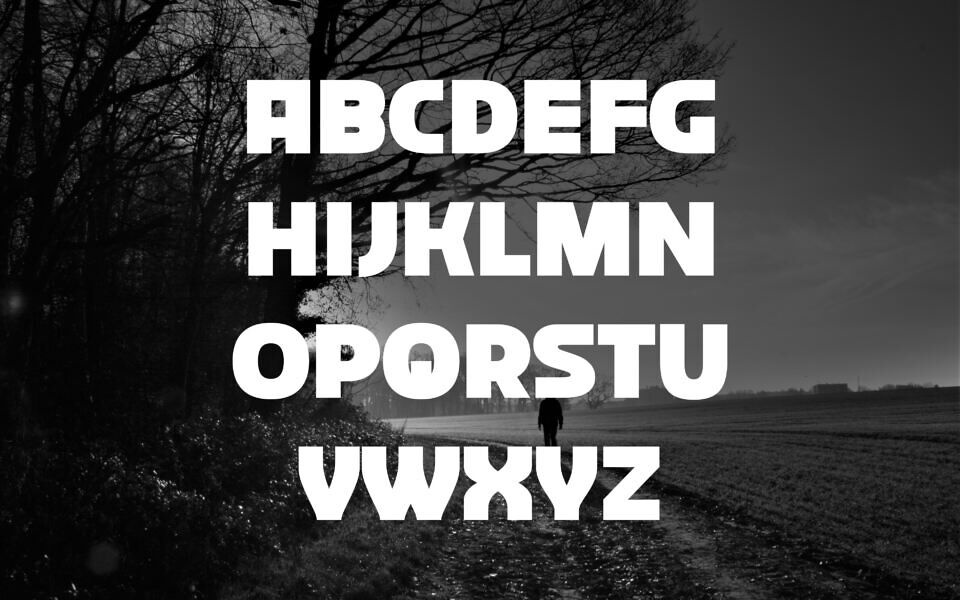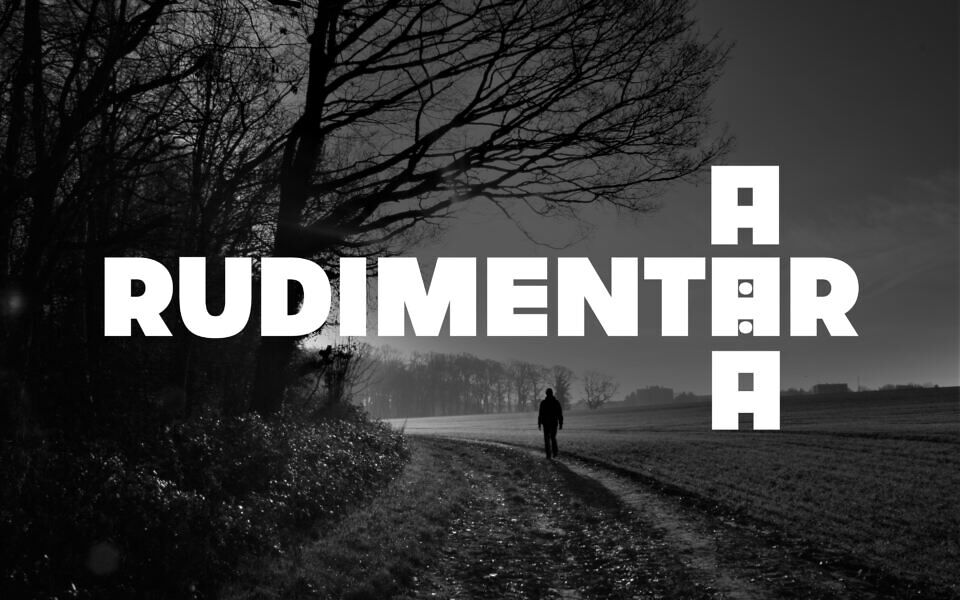
Rudimentär Font
The “Rudimentär” font is a free bold, all-caps display typeface characterized by its stark, geometric forms. Its strong presence makes it suitable for headlines, logos, and branding where impact and clarity are desired.
The font’s robust construction gives it a modern and authoritative feel, making it versatile for various design applications.